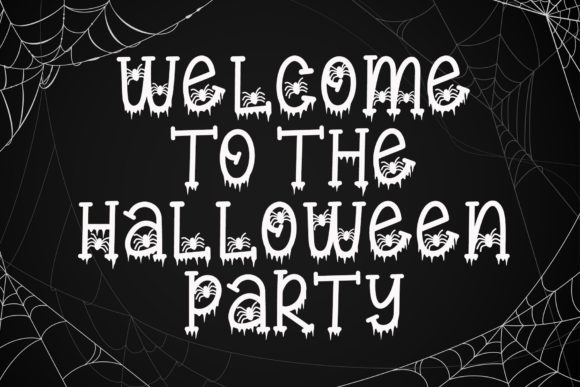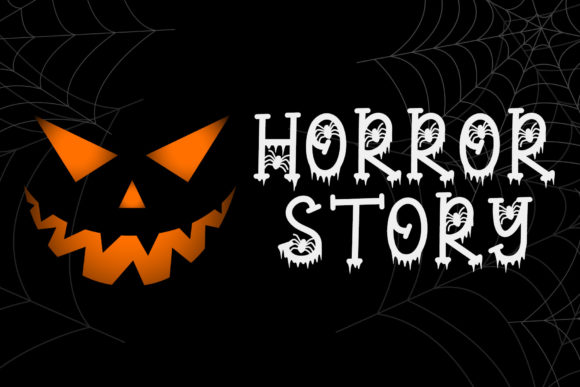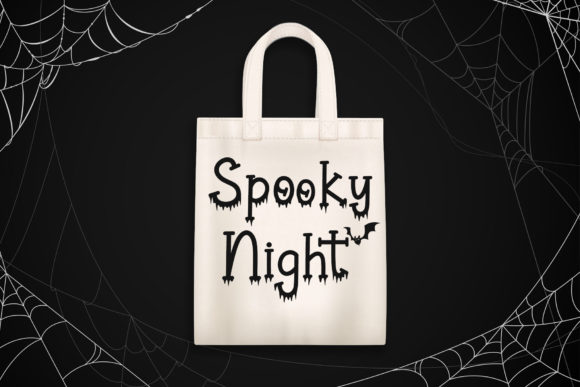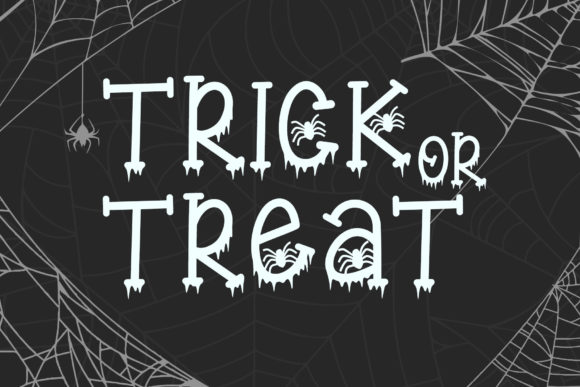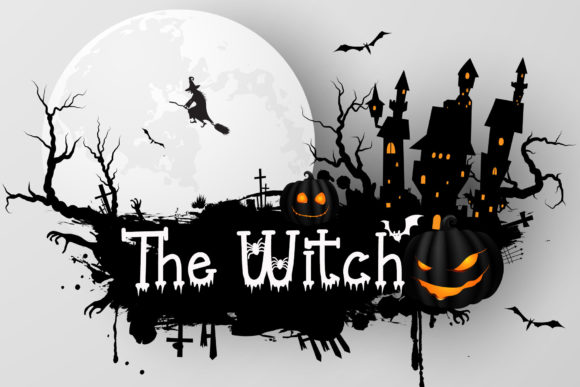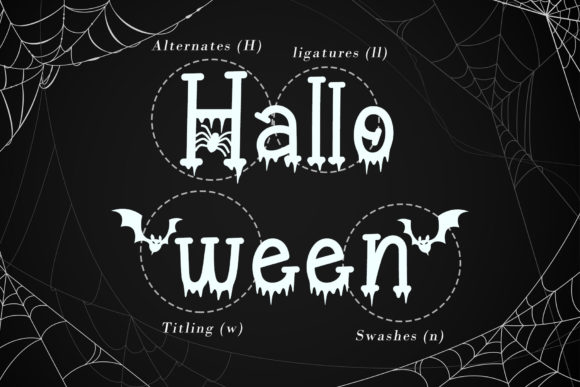
Get Ready for a Spooky Good Time with the Halloween Festival Font
I still remember the thrill of rummaging through my grandma’s attic on Halloween night, surrounded by cobwebs, old trunks, and mysterious decorations. The air was filled with the sweet scent of pumpkin spice and the sound of distant howls. It was a magical night that sparked my imagination and fueled my love for all things spooky. As a designer, I’m always on the lookout for fonts that capture the essence of this special time of year.
That’s why I’m excited to share with you the Halloween Festival Font, a cool-lettered and spooky display font that’s perfect for any Halloween-related project or crafty idea. With its PUA encoding, you’ll have access to all of the glyphs and swashes, making it a valuable tool for designers looking to create unique and eye-catching designs. Whether you’re working on a haunted house invitation, a spooky-themed blog post, or a DIY craft tutorial, the Halloween Festival Font is sure to add a touch of magic to your project.
Halloween Festival Font Key Features
- Font Family: A unique, spooky font family designed specifically for Halloween-themed projects.
- Font Size: The font family includes 6 font sizes ranging from 12pt to 72pt, allowing for versatile use in various design contexts.
- Resolution: The font is optimized for high-resolution displays, ensuring crisp and clear rendering at resolutions up to 300 DPI.
- Unique Characteristics: Includes a range of creepy, gothic-inspired characters and symbols, such as spiders, bats, and jack-o-lanterns, to add an eerie touch to designs.
- Language Support: Supports a wide range of languages, including English, Spanish, French, German, and many more, making it a great choice for international projects.
Halloween Festival Font Review
Overall, I think the Halloween Festival Font is a great addition to any spooky-themed project. Here are some things that work well: ✨
- Unique and creative design elements, such as the ghostly font variations and jack-o-lantern-inspired characters.
- Good level of detail and texture, which adds to the overall spooky atmosphere.
- Flexibility in terms of font sizes and styles, making it suitable for a variety of applications.
However, there are also some limitations to consider: ⚠️
- Limited character set, which may not be suitable for longer blocks of text.
- Some of the design elements may be a bit too busy or overwhelming, which could detract from the overall message.
- Potential issues with legibility at smaller font sizes, which could be a problem in certain applications.
Overall, I think the Halloween Festival Font is a great choice for projects that require a spooky or Halloween-themed design. Just be sure to use it judiciously and consider the potential limitations. With a little creativity and planning, it can be a real showstopper!
1. Experiment with different font sizes and styles to create a spooky atmosphere.
2. Use the font in combination with other Halloween-themed elements, such as images and graphics.
3. Create a bold and eye-catching headline with the font.
The Halloween Festival Font is perfect for:
1. Creating spooky invitations and party decorations.
2. Designing Halloween-themed social media posts and graphics.
3. Adding a touch of Halloween magic to your website or blog.